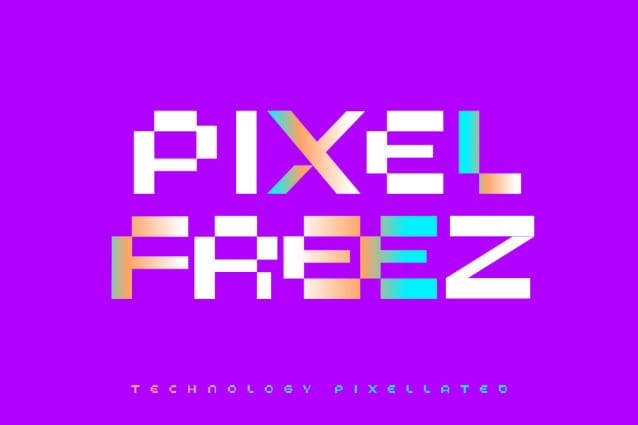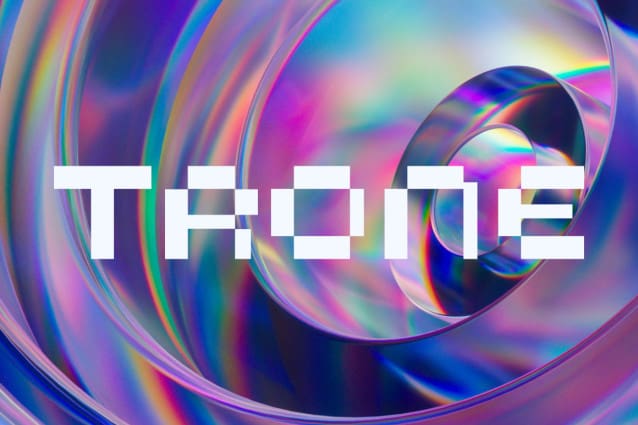
Aeogo Box Typeface
Aeogo Box Font: In a world of ones and zeros, where shapes were jagged and colors faded, a tiny hero emerged. Their pixelated form, though simple, held a heart of pure digital courage. They ventured into the vast expanse of the digital realm, their journey a tapestry woven with code and circuits. Each step was a leap into the unknown, a pixelated adventure that would forever change the landscape of the digital universe.